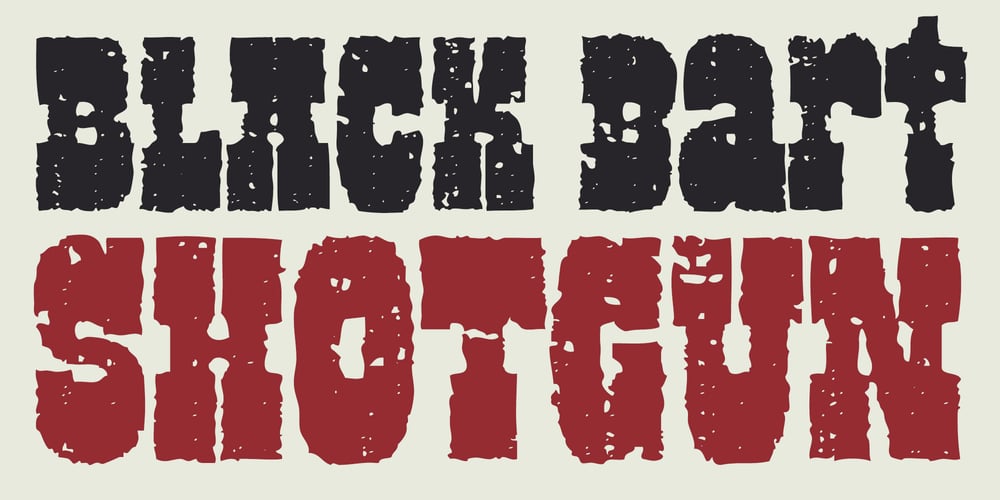
Black Bart Shotgun
Black Bart Shotgun font
Black Bart Shotgun Font Family was designed by Sawyer Hume and published by Fontasmic. Black Bart Shotgun contains 1 styles and family package options. From the same stylings of Black Bart comes Black Bart Shotgun: aged and eroded by time, like pitting and chipping paint on an old barn. This old cowboy has been there and done that, seen all there is to see and is still alive to tell the tale. You’ll find all the same stylistic alternates and contextual alternates like various starting and middle swash letters, alternate character styles, special ligatures for words like “OF” “THE” “AND” and alternate form of those too.Sometimes the gnarliest looks can draw the most attention because they show they’ve endured time. That’s Black Bart Shotgun for you.